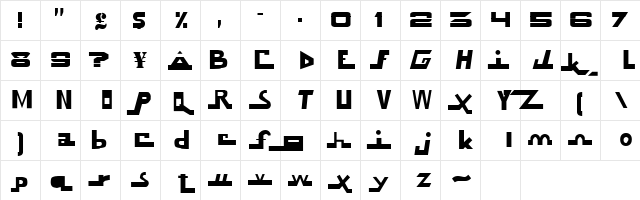
Know Future Normal
Design Context for Know Future Typeface
Know Future channels digital-age aesthetics through its sharp, structured letterforms — ideal for brands that want to signal innovation.
Pro Tip: Try Know Future with generous letter-spacing in UI labels and navigation — the geometric forms benefit from room to breathe.